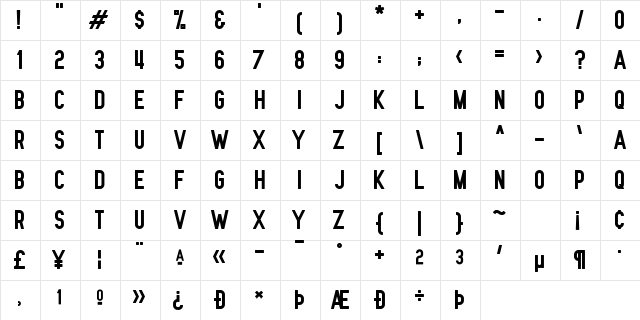
Nue Gothic Round Regular
Design Context for Nue Gothic Round Typeface
Nue Gothic Round has the quiet confidence of well-executed sans-serif typography: versatile, unobtrusive, and dependable at any size.
Font Pairing: Works well alongside a characterful serif or display font that can carry the expressive load while Nue Gothic Round handles the functional copy.
Pro Tip: Pair Nue Gothic Round with a display or serif font for headlines — its neutral character makes it an excellent supporting player in complex typographic systems.